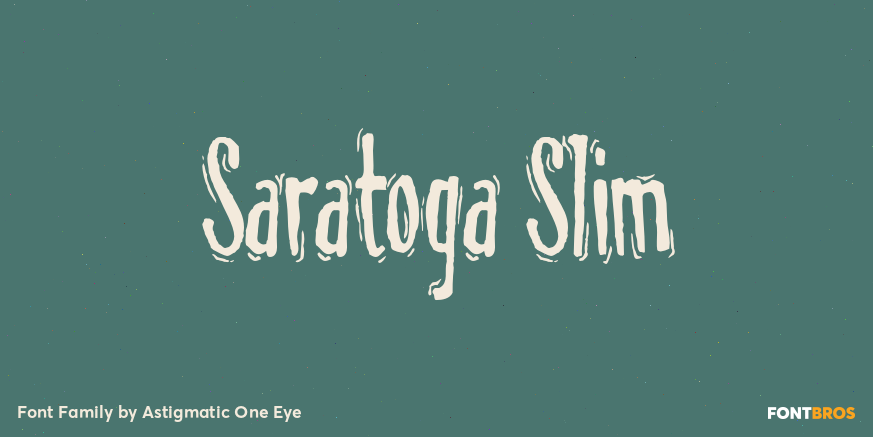
Saratoga Slim
About Saratoga Slim
He\’s rough around the edges, but what did you expect? He\’s an outlaw from the Old West! He\’s Saratoga Slim, a playful shaken up dust devil of a typeface. It has a shaken appearance and rough-hewn letters, yet is clearly legible to read. Put some rough…